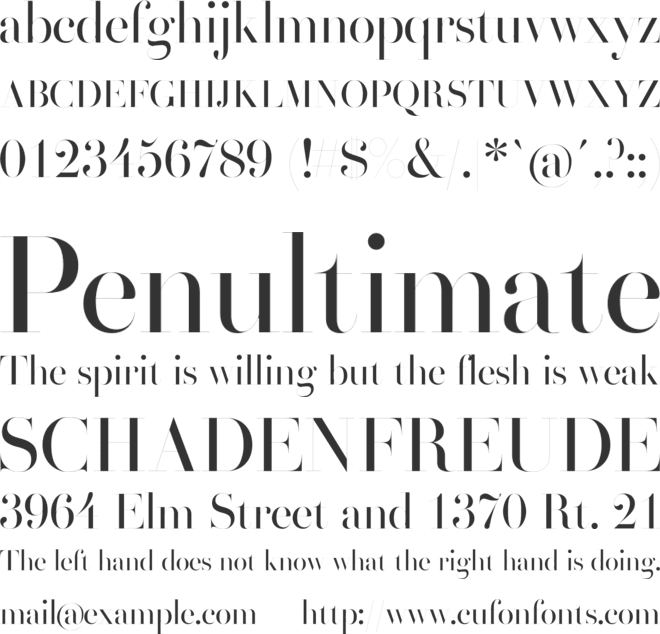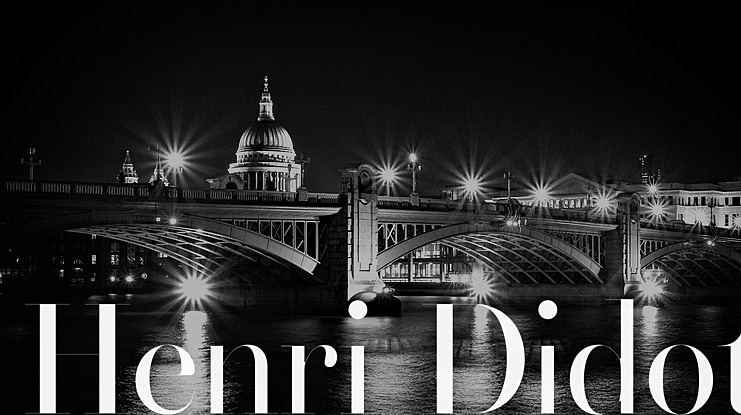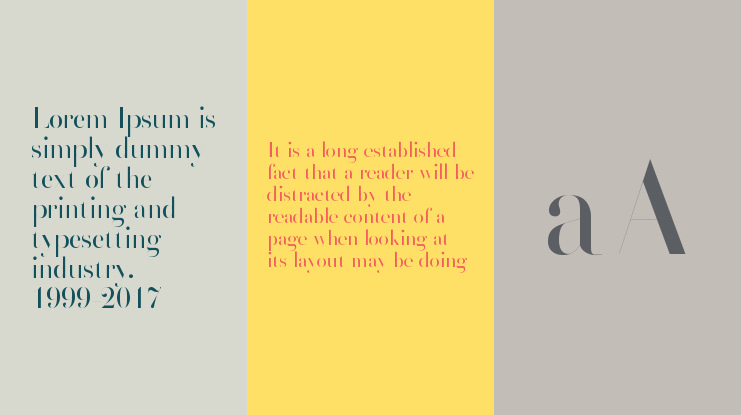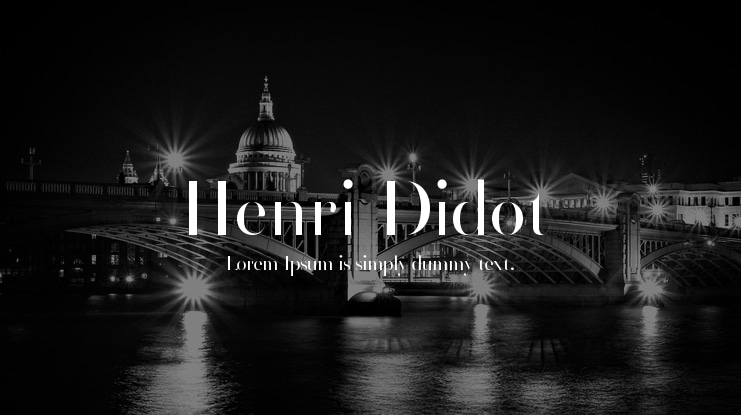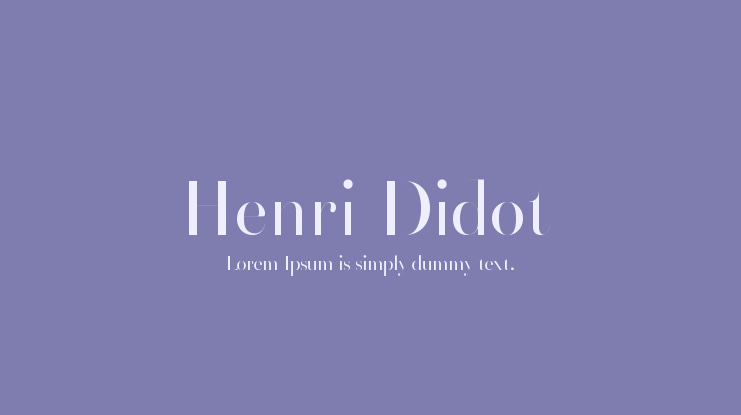
A superfine Didot, Henri Didot is best used at huge sizes. Super high contrast, reworked metrics and kerning, and OpenType oldstyle figures. Keep away from balloons and inquisitive children. Download for free, or donate to support more projects. Henri Didot is based on Theano Didot by Alexey Kryukov.